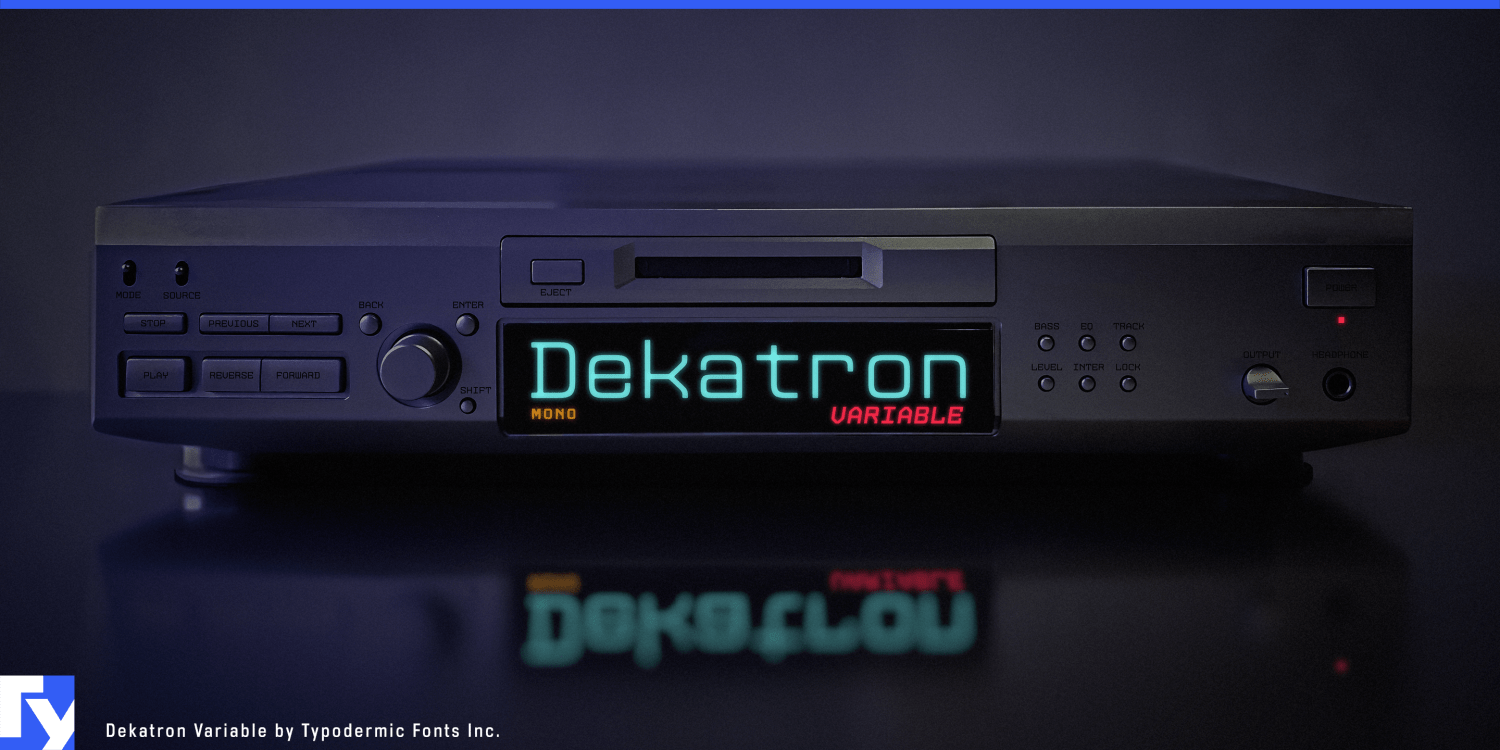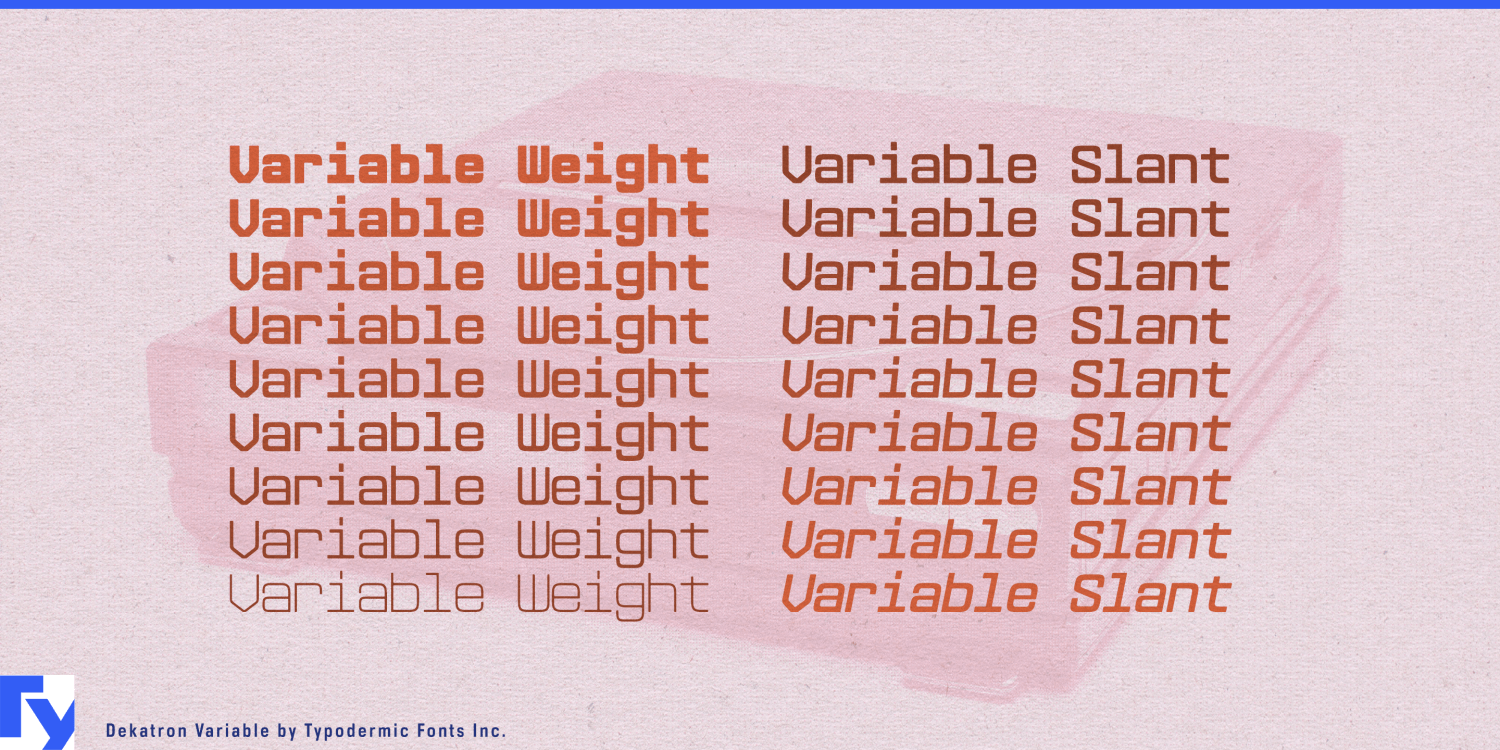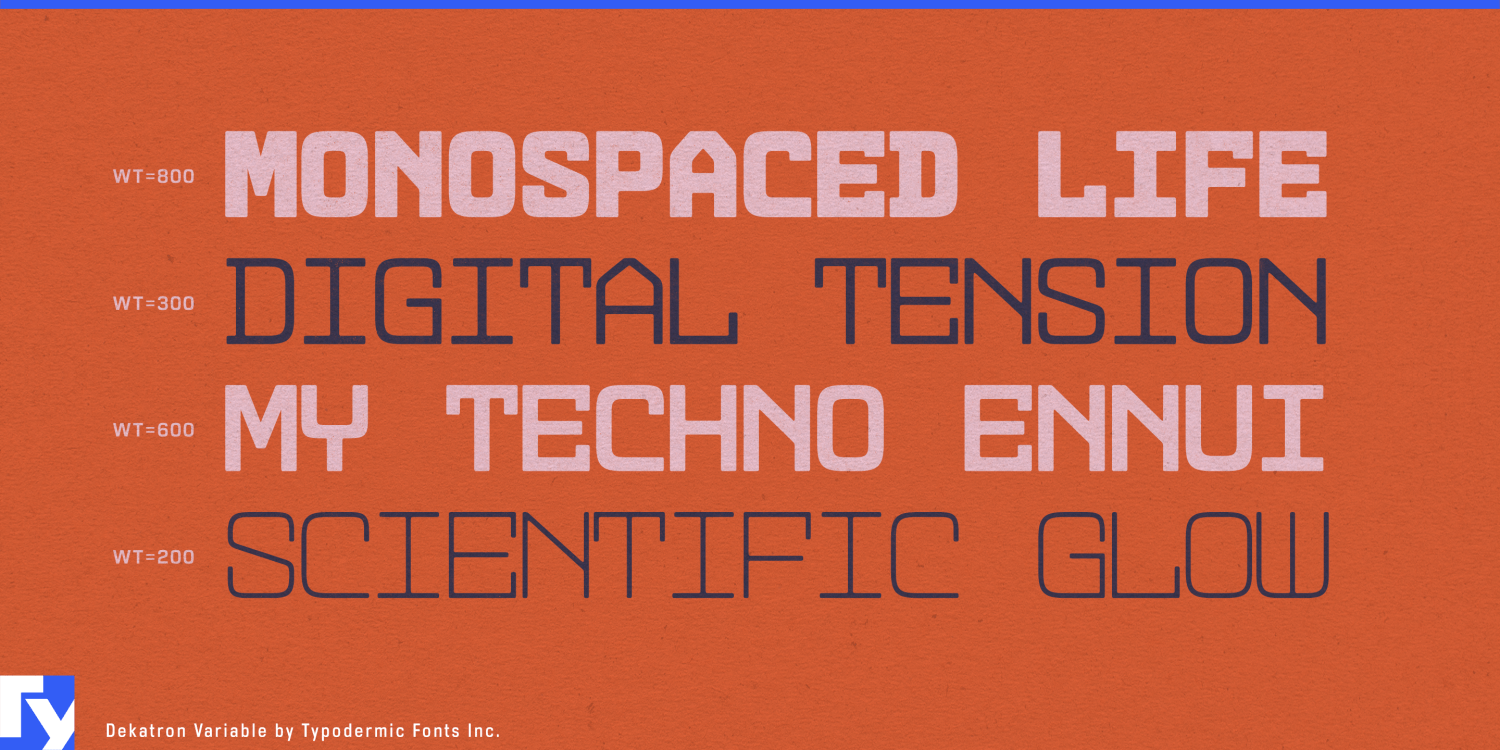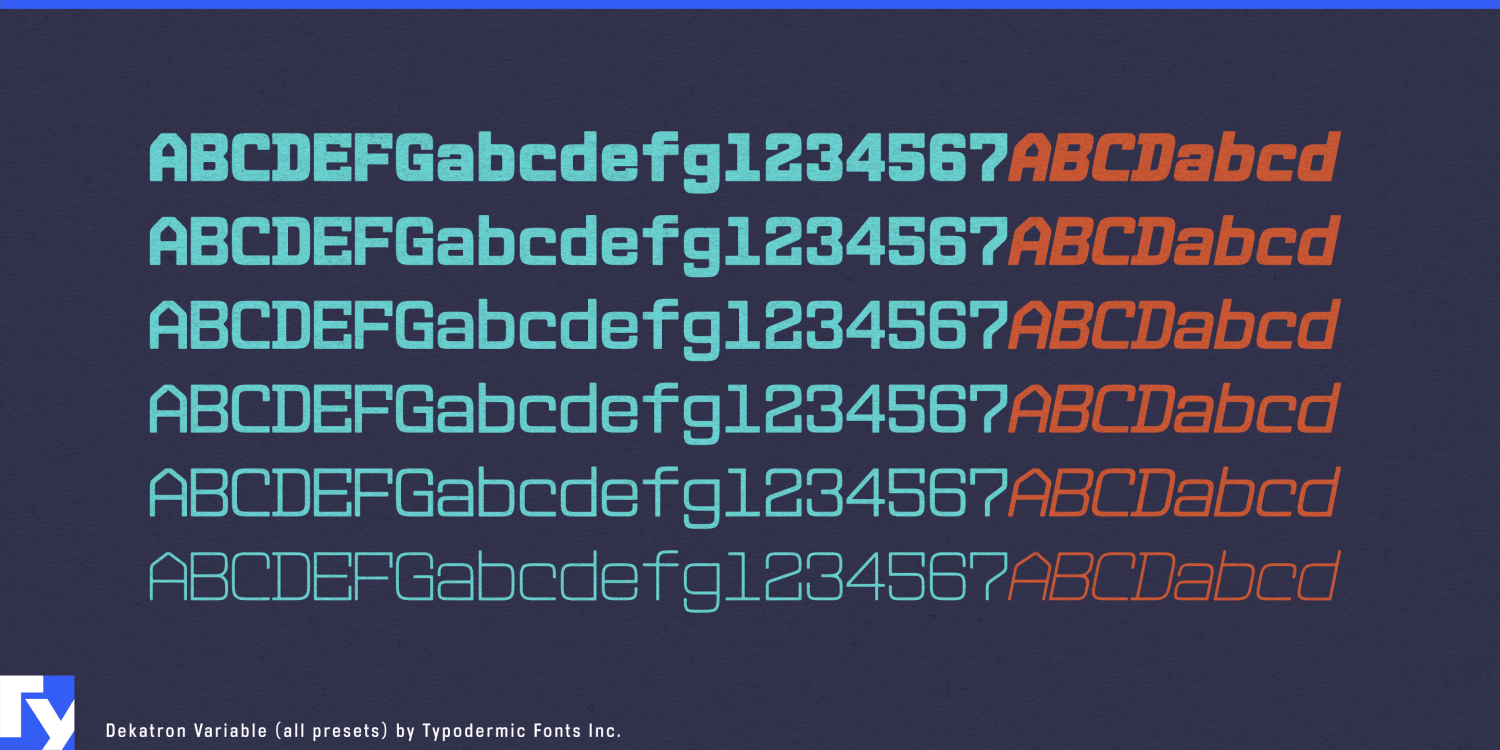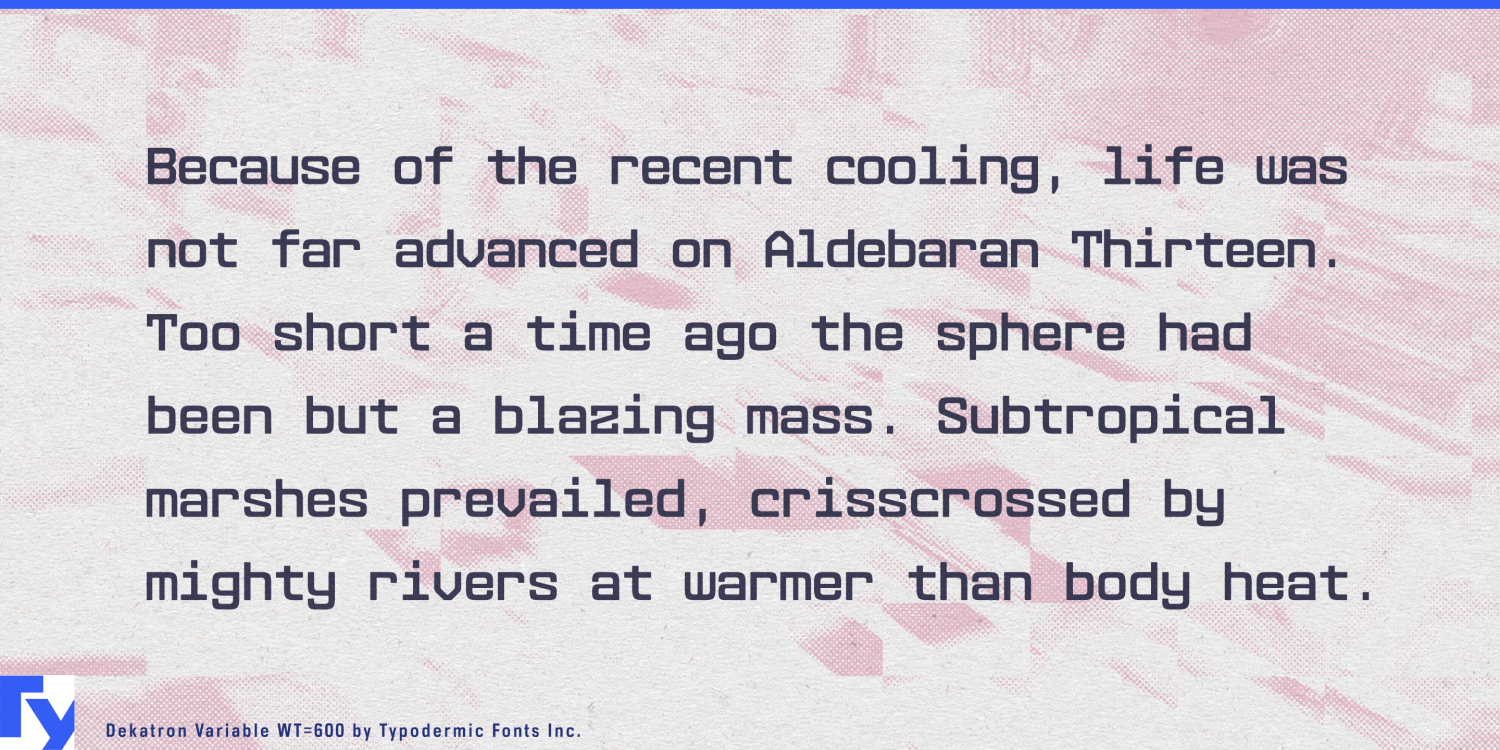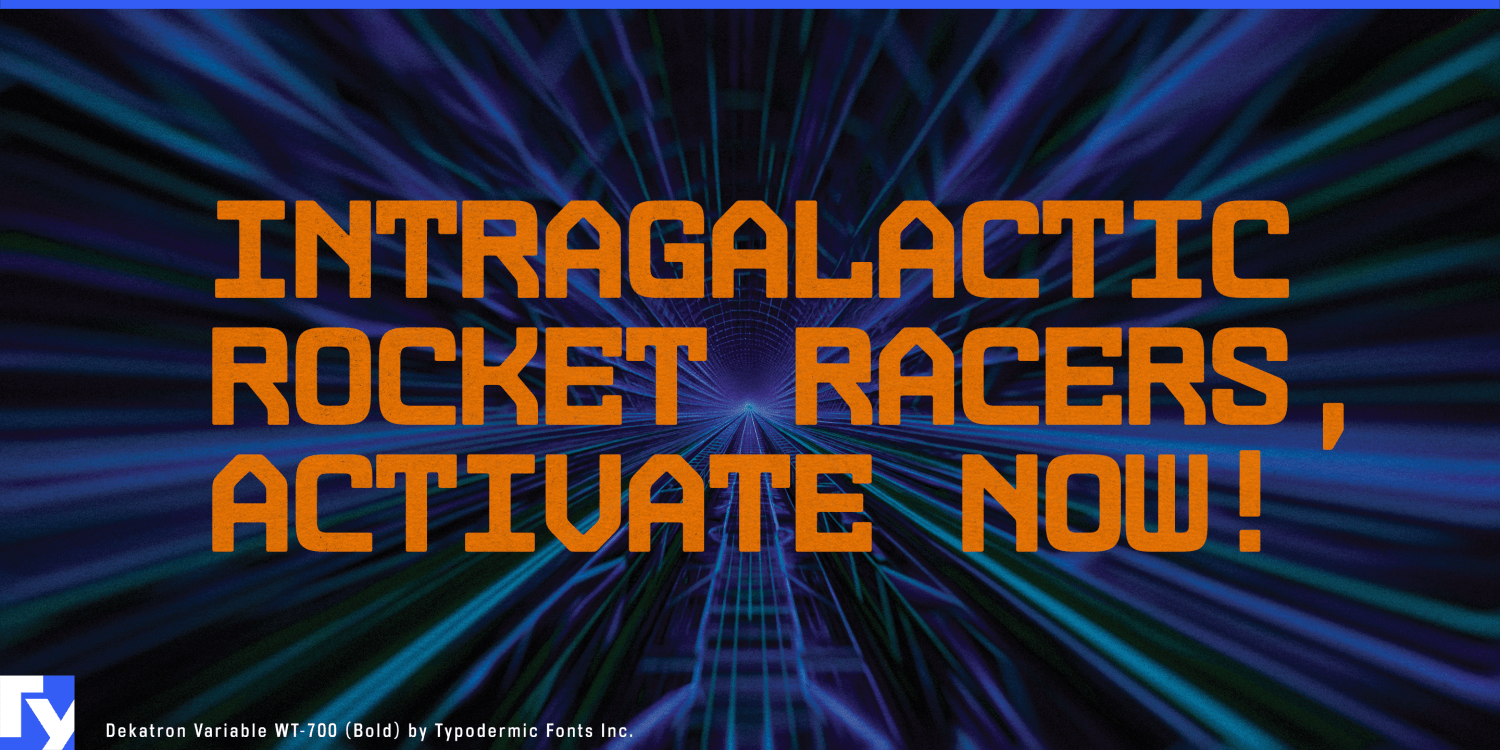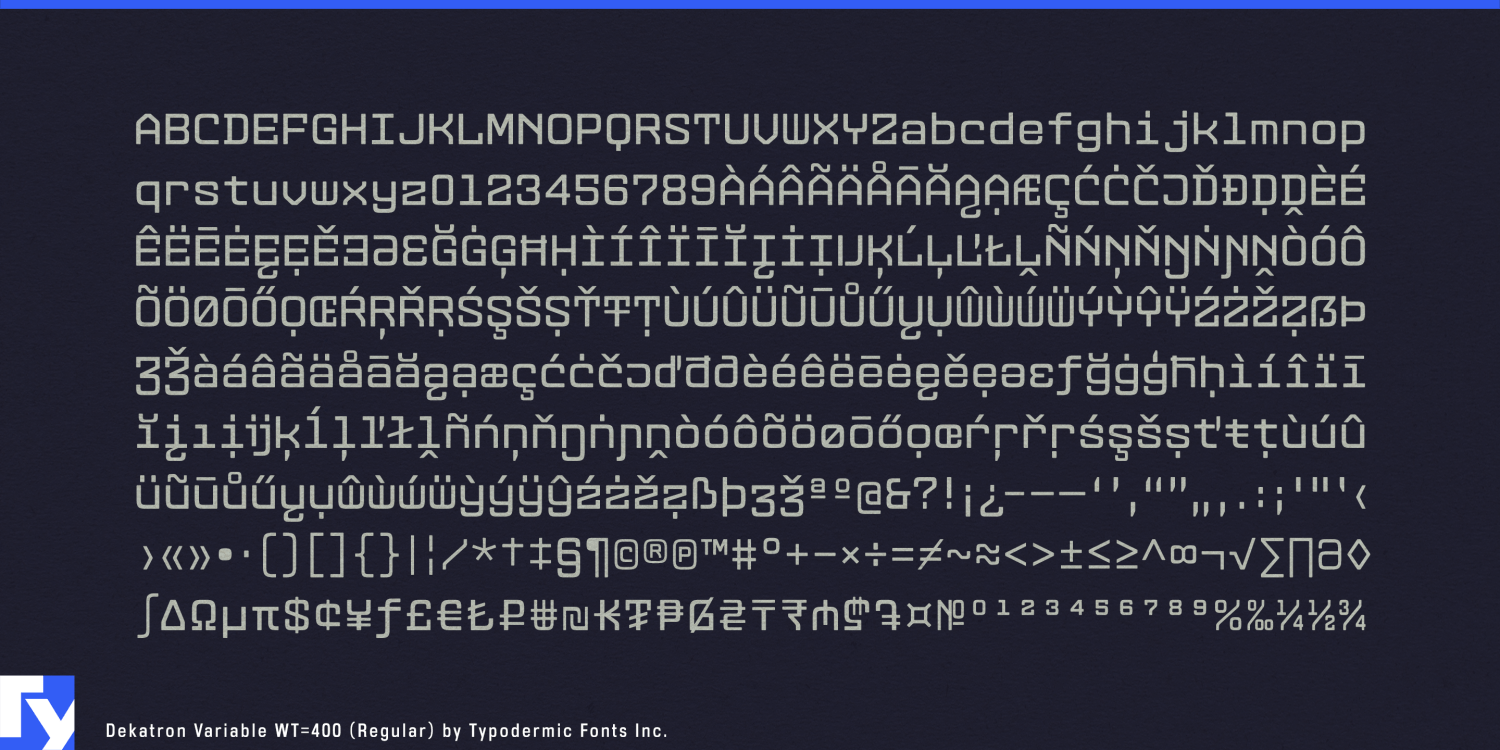
Dekatron Variable
Dekatron Variable is a monospaced typeface without limits. Built on a fixed-width foundation, it gives you full control over weight—sliding seamlessly from extra-light to extra-bold—so you can fine-tune emphasis without ever breaking alignment.
Its forms are sharply modern yet softened with precision-rounded ends and superelliptical curves, creating a tone that’s technical but not cold. Whether you keep it upright for crisp, mechanical clarity or push it toward the heavy end for impact, the spacing stays exact—perfect for code interfaces, responsive UIs, kinetic type animations, or any layout where changing weight shouldn’t change the grid.
This flexibility means one font file can adapt to a range of moods and applications. Light weights whisper in clean, airy layouts; heavier weights carry authority in branding, titling, and display work. Between them lies a smooth continuum, ready for motion graphics that morph, presentations that shift tone mid-slide, or print designs that demand precision and adaptability in equal measure.
Named after an early computing vacuum tube, Dekatron Variable keeps the spirit of calculation and control alive—only now, it’s in your hands. Whatever the context—technical manuals, sci-fi branding, data-driven interfaces—it delivers clarity, structure, and the ability to change voice without changing shape.